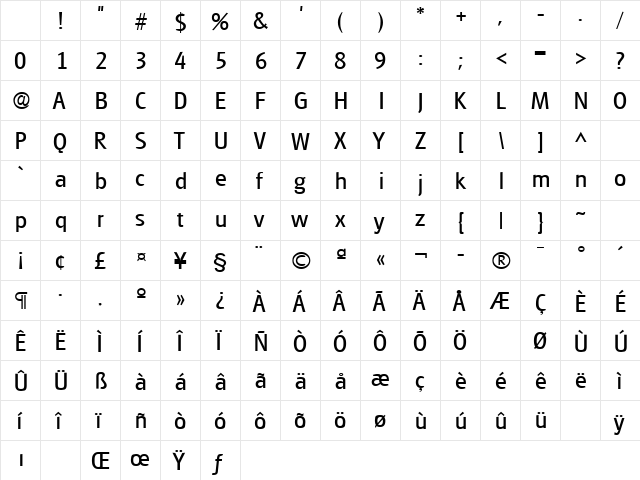
Complete Goudita Sans SF Regular glyph index. Displaying only characters natively supported by Goudita Sans SF Regular font.
Goudita Sans SF is a composed and adaptable typeface that performs quietly and consistently across a wide range of design contexts.